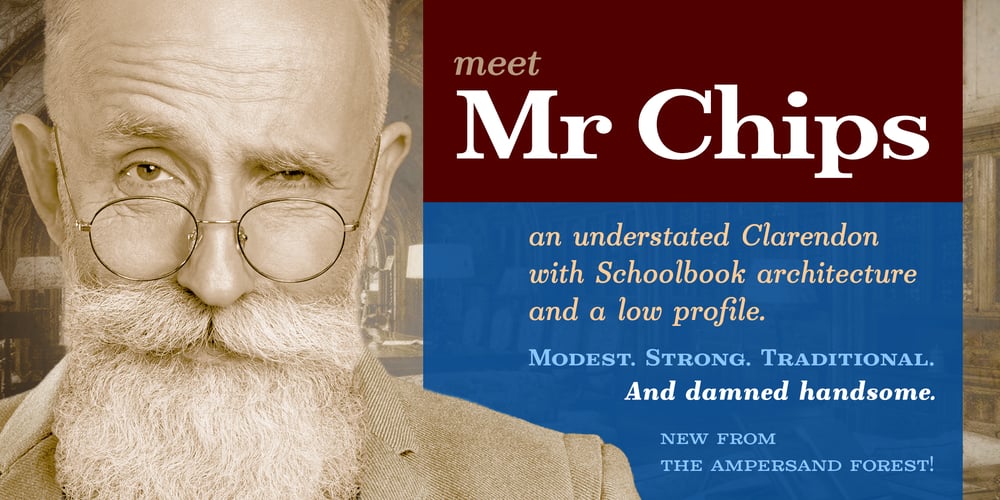
Mr Chips Font Family was designed by DC Scarpelli and published by The Ampersand Forest. Mr Chips contains 6 styles and family package options. Mr Chips is a love letter to modern text serif families like Century Schoolbook and Scotch Romans of all kinds.There’s nothing precious about Mr Chips. He’s built sturdily, but with a less upright stance than his forebears, with a lower, more relaxed x-height. Mr Chips is dependable and true, with recognizable shapes that make him a pleasure to read. He’s a Clarendon, but without the bulkiness that makes Clarendons difficult in text. Mr Chips has character sets for Western Europe, Cyrillic, and monotonic Greek. He has a full set of true small caps for versatility and hierarchy, and some fun and functional ligatures. His alternate characters include a one-story a and g in the upright versions, straight and curly Ka’s and Zhe’s in Cyrillic, and two styles of ampersand.He’s an all around usable, agreeable guy!Mr Chips is a companion typeface to Miss McGee, also from The Ampersand Forest!